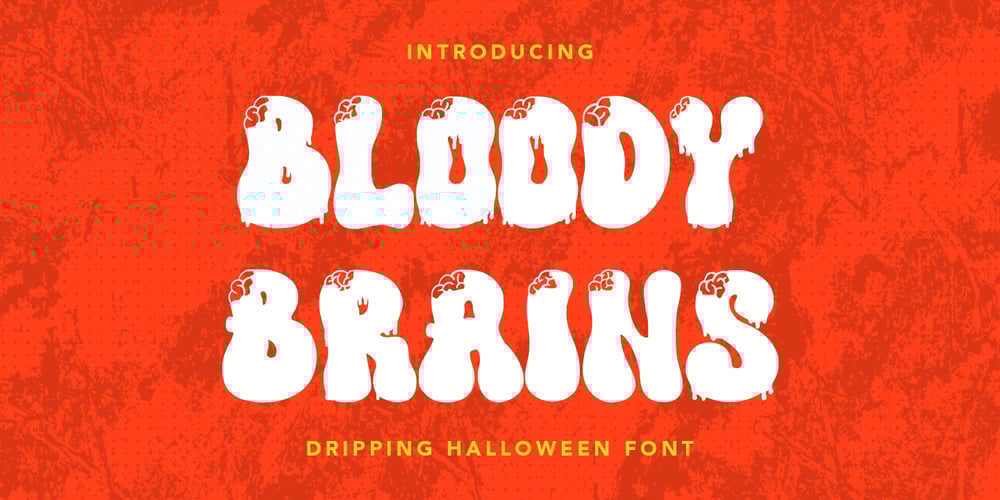
Bloody Brains Font Family was designed by Asep Rendi and published by Arendxstudio. Bloody Brains contains 1 styles and family package options. Bloody Brains – Dripping Halloween Font is a display font that is inspired by gothic and horror style because its shape is very unique and is perfect for any project that you will use with this theme.Bloody Brains with opentype features such stylistic alternates, stylistic sets & ligatures good for logotype, poster, badge, book cover, tshirt design, packaging and any more.Features :1.Uppercase & Lowercase 2.Multilingual support 3.Number 4.Symbol 5.Punctuation.6.Support in Mac and Windows OS -Support in design application (photoshop, illustrator, and more)